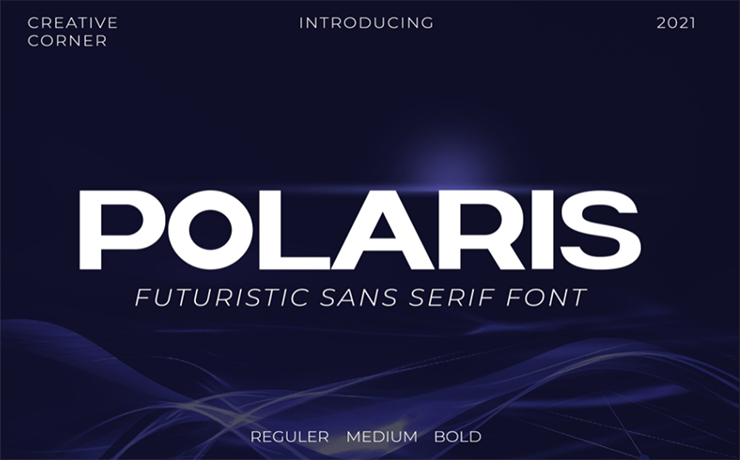
If you are looking for a simple and bold futuristic sans serif typeface, look no further than Polaris Font. This is a very well font that comes to mind the first time you see it.
Its bold look will set your design to stand out from the crowd. Use it for posters, banners, logos, flyers, headlines, and more.
This is a modern typeface in which the structure of the future is almost identical to that of the science fiction typeface. Its versatile text management is perfect for any design.
Medium-sized text feature, for smaller text sizes as well as longer texts. However, each letter retains its classic expression.
Try it out for logos, banners, posters, advertisements campaigns, video titlings, hoardings, brochures, basic book texture, headlines, or any other long text arrangements.